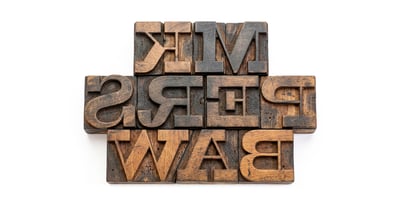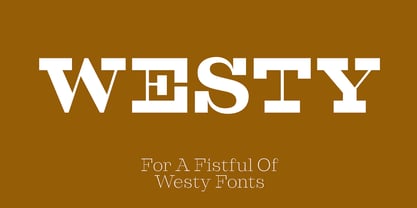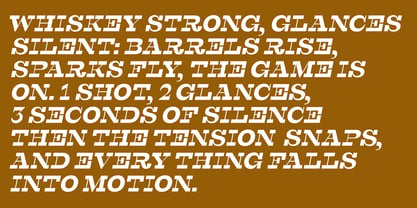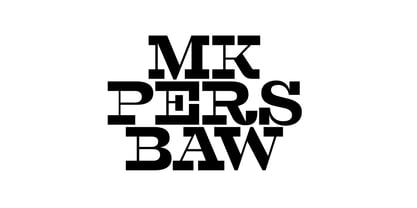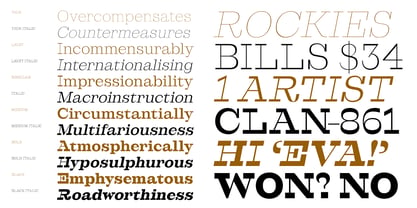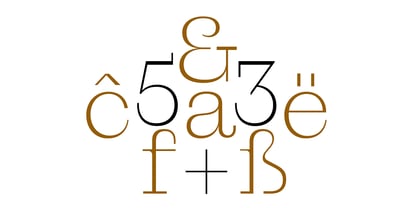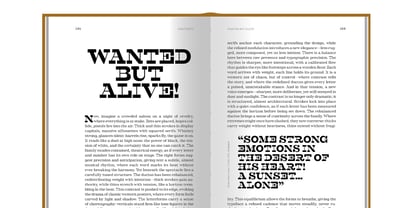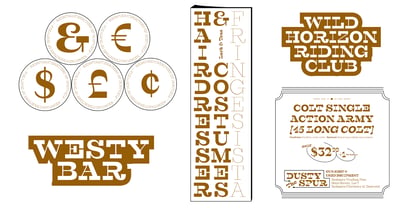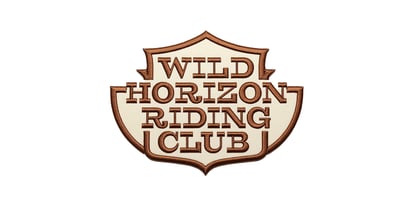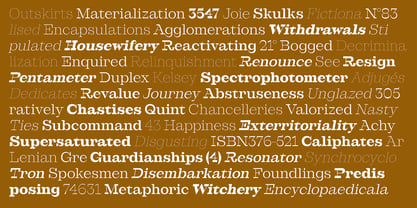
Westype
by Pizzatypefaces
The Westype Font Family was designed by Adrien Midzic and published by Pizzatypefaces. Westype contains 12 styles and family package options. More about this family
Westy draws on the legacy of wood type, adopting its directness and impactful logic, while subverting its construction rules. Where these historical models rely on definite balance, Westy introduces a controlled instability. The design of the capitals is based on a deliberately arbitrary distribution of mass. The contrasts do not follow a traditional logic: they are displaced, redistributed, almost dissonant—while remaining rigorously constructed. This internal tension produces forms that are both familiar and unexpected. The lowercase letters, more compact, provide a solid foundation for the text. Their stability contrasts with the treatment of the rounded forms, in which aggressive, closed curves break the expected continuity. This gesture introduces a form of resistance to reading, without ever compromising it. Used in capitals, Westy becomes an image: the letter repeats itself, intensifies, and generates a pattern. The word then shifts toward a surface logic, almost ornamental. In standard typesetting, typography regains a more legible function, but retains its internal vibrancy. The system of weights amplifies these effects. Depending on their depth, the contrasts intensify, altering the perception of forms and their visual impact. Westy thus plays on variations in density to make the reading experience oscillate between stability and tension. Westy explores a typography of controlled imbalance, where the letter becomes a point of friction between inherited structure and contemporary disruption.